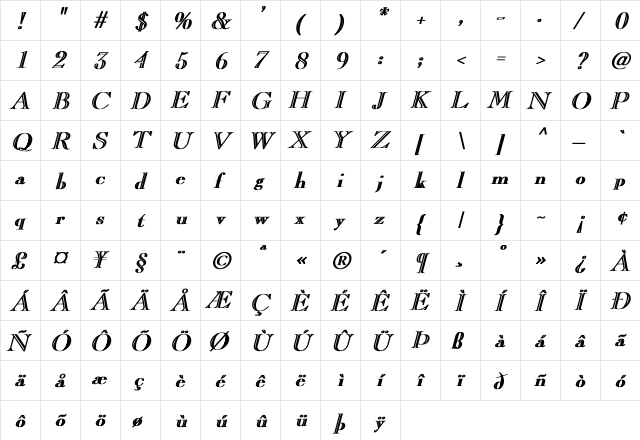
Lara Bold Italic Regular Font Preview
Lara Bold Italic Regular
Design Context for Lara Bold Italic Typeface
Lara Bold Italic takes a measured approach to typography — its balanced proportions and neutral character make it a reliable workhorse for both digital and print work. The slanted form adds forward momentum and visual energy. The heavy weight commands attention and anchors typographic hierarchies.